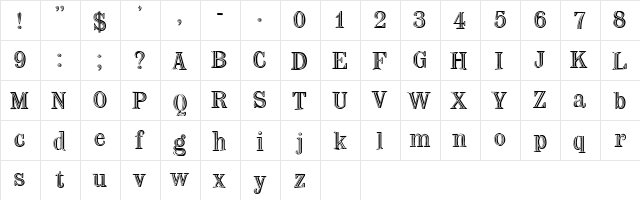
Nauert Medium Font Preview
Nauert Medium
Nauert Medium Font Details
Design Context for Nauert Typeface
Nauert takes a measured approach to typography — its balanced proportions and neutral character make it a reliable workhorse for both digital and print work.